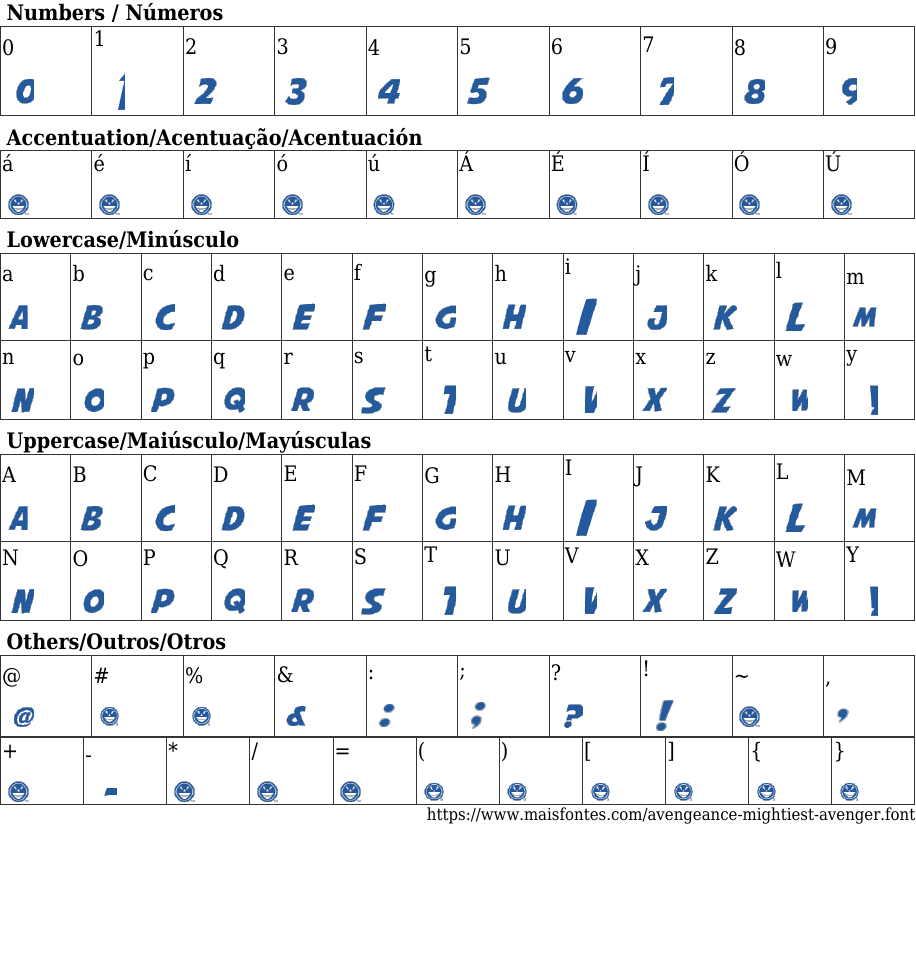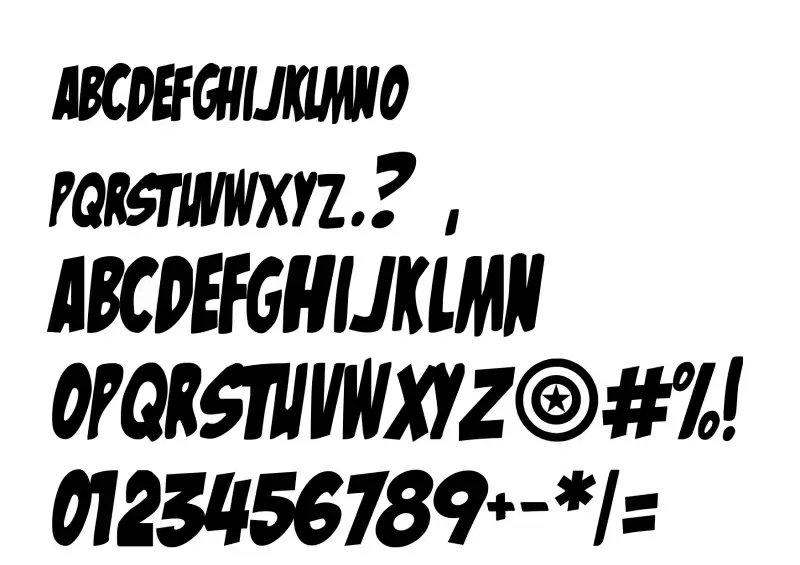
Avengeance Mightiest Avenger Font Download - Web download and install the avengeance mightiest avenger font for free from ffonts.net. Web avengeance mightiest avenger font download is available free from fontget. The font is licensed as free for personal use. Avengeance mightiest avenger by fontry. Web avengeance mightiest avenger font fontry website.
Avengeance Mightiest Avenger Font Download - The font is licensed as free for personal use. Web download and install the avengeance mightiest avenger font for free from ffonts.net. Avengeance mightiest avenger is a fancy. Web avengeance mightiest avenger font fontry website. Web avengeance mightiest avenger is a fancy, comic font designed by fontry.
Avengeance Mightiest Avenger Font Download - Avengeance mightiest avenger is a fancy. Web download and install the avengeance mightiest avenger font for free from ffonts.net. You can download and use the. Web avengeance mightiest avenger font download is available free from fontget. Web avengeance mightiest avenger font.
Avengeance Mightiest Avenger Font Download - Avengeance mightiest avenger by fontry. You can download and use the. Web avengeance mightiest avenger font. ️ this font has been. Web download and install the avengeance mightiest avenger font for free from ffonts.net.